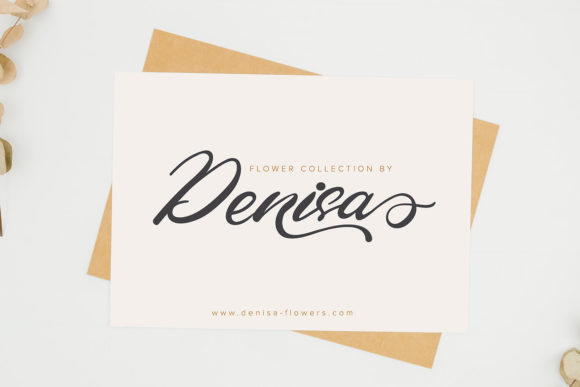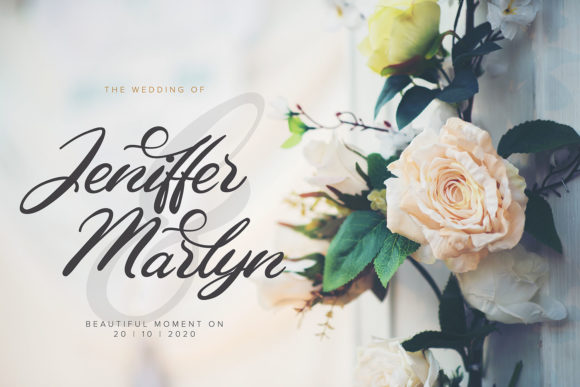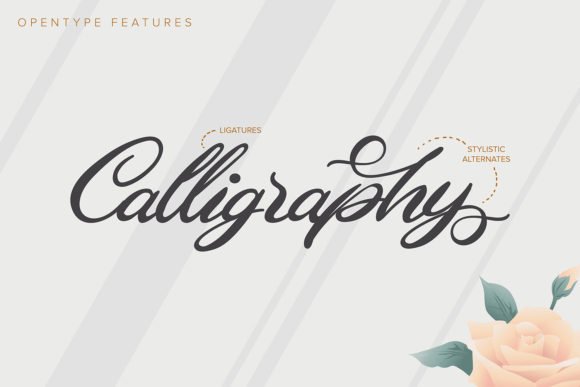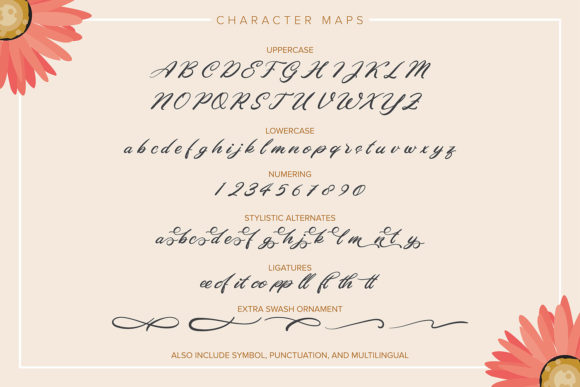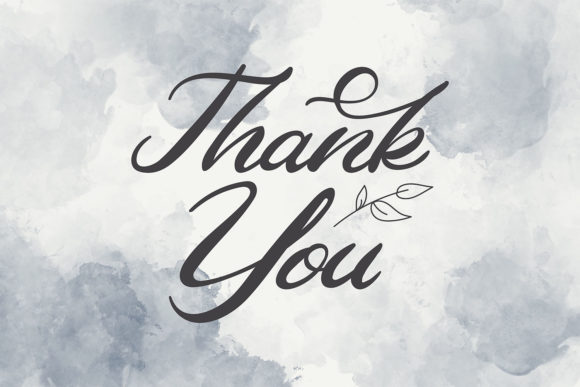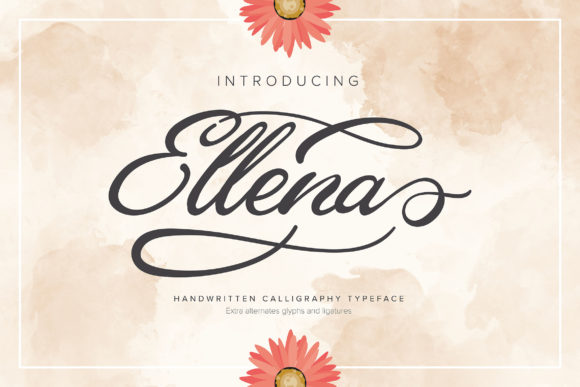
Introducing Ellena Font: Elevate Your Designs with Elegance and Flair
In the world of typography, a font can make or break a design. For designers and crafters seeking to add a touch of sophistication and whimsy to their projects, Ellena Font is an exceptional choice. This delicate, elegant, and flowing handwritten font is designed to bring a sense of luxury and creativity to a wide range of designs. With its beautiful and well-balanced characters, Ellena Font is versatile enough to match various design aesthetics, making it a valuable addition to any creative arsenal.
The Characteristics of Ellena Font
Ellena Font boasts several key features that set it apart from other fonts. Its varying baseline gives it a dynamic and organic feel, reminiscent of handwriting. The smooth lines and gorgeous glyphs contribute to its elegance, ensuring that it looks refined and sophisticated in any context. Furthermore, Ellena Font comes with stunning alternates, allowing designers to add variety and personality to their text.
One of the most significant advantages of Ellena Font is its PUA (Private Use Area) encoding. This feature means that accessing all the glyphs and swashes is straightforward, giving designers the flexibility to experiment and create unique text arrangements. With PUA encoding, you can easily access and use the extended character set, making it simpler to add intricate details and personal touches to your designs.
Why Choose Ellena Font?
There are several reasons why Ellena Font stands out as a top choice for designers and crafters:
- Versatility: Its elegant and flowing design makes it suitable for a wide range of projects, from wedding invitations and branding materials to digital content and craft projects.
- Ease of Use: Thanks to PUA encoding, using the various glyphs and swashes is hassle-free, making it accessible even for those with less technical expertise.
- Aesthetic Appeal: The font’s delicate and elegant nature adds a touch of class and sophistication to any design, ensuring it stands out.
- Balance: The well-balanced characters ensure that the text is easy to read while still being visually appealing.
Applications of Ellena Font
Ellena Font’s versatility means it can be used in a multitude of applications:
- Wedding and Event Stationery: Add a personal and elegant touch to invitations, save-the-dates, and thank-you cards.
- Branding and Packaging: Elevate your brand with a sophisticated and memorable logo or packaging design.
- Digital Content: Enhance blog posts, social media graphics, and website headers with a touch of elegance.
- Crafting Projects: Perfect for DIY crafters, Ellena Font can be used in handmade cards, journals, and other paper crafts.
Tips for Using Ellena Font Effectively
To get the most out of Ellena Font, consider the following tips:
- Mix and Match: Don’t be afraid to experiment with different glyphs and swashes to create a unique look.
- Pair with Other Fonts: Ellena Font works well with both serif and sans-serif fonts, so try pairing it to add contrast and interest.
- Play with Sizes: Using varying font sizes can help emphasize certain words or phrases, adding depth to your design.
Ellena Font is a beautiful, elegant, and versatile handwritten font that can elevate any design. Its delicate and flowing characters, combined with PUA encoding for easy access to glyphs and swashes, make it an excellent choice for designers and crafters looking to add a touch of sophistication and whimsy to their projects. Whether you’re working on wedding stationery, branding materials, digital content, or crafting projects, Ellena Font is sure to bring your creative ideas to life.